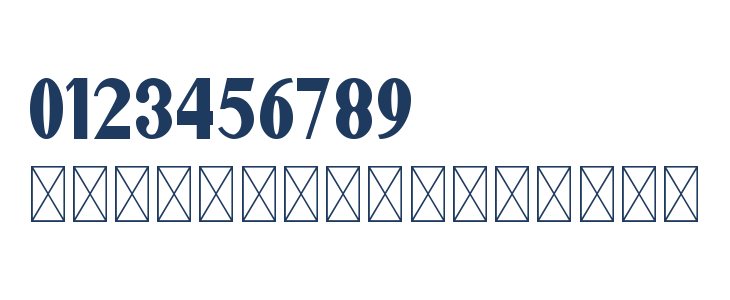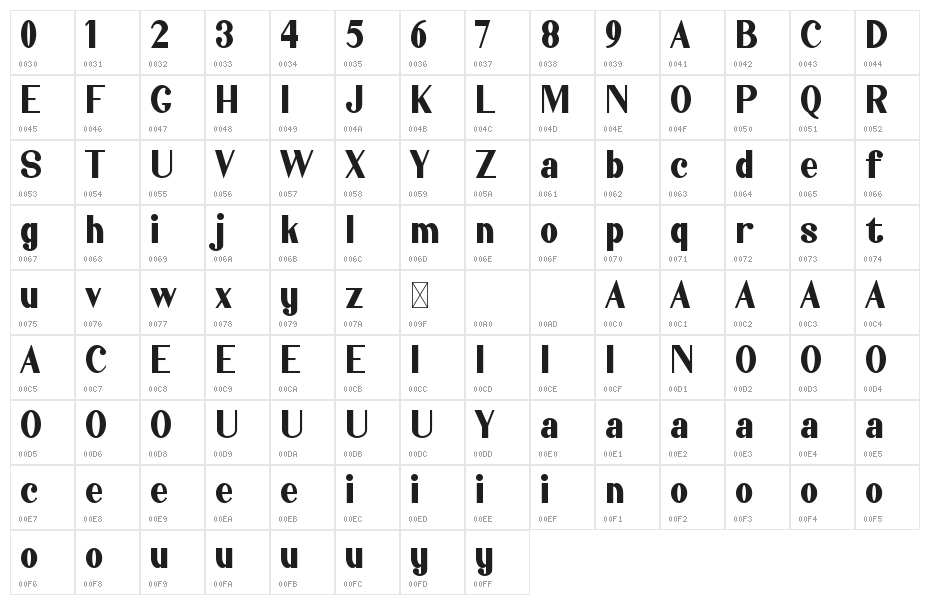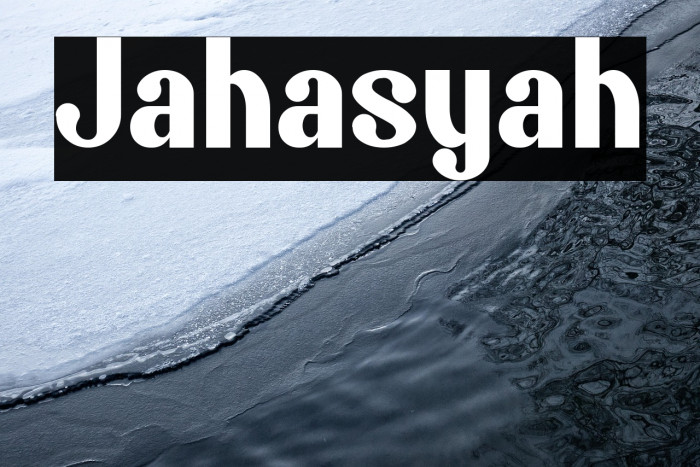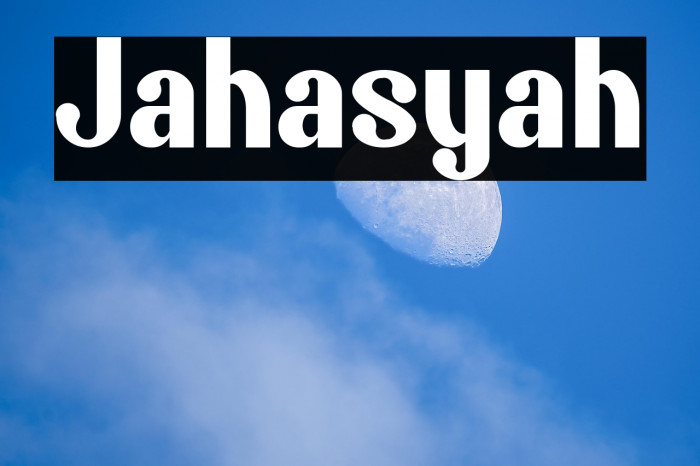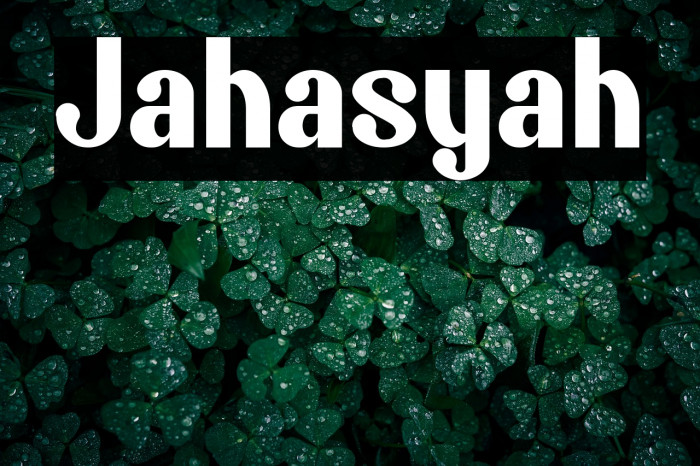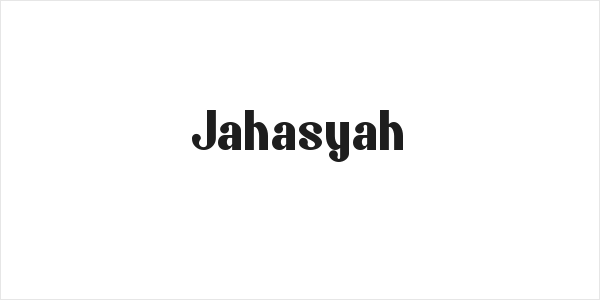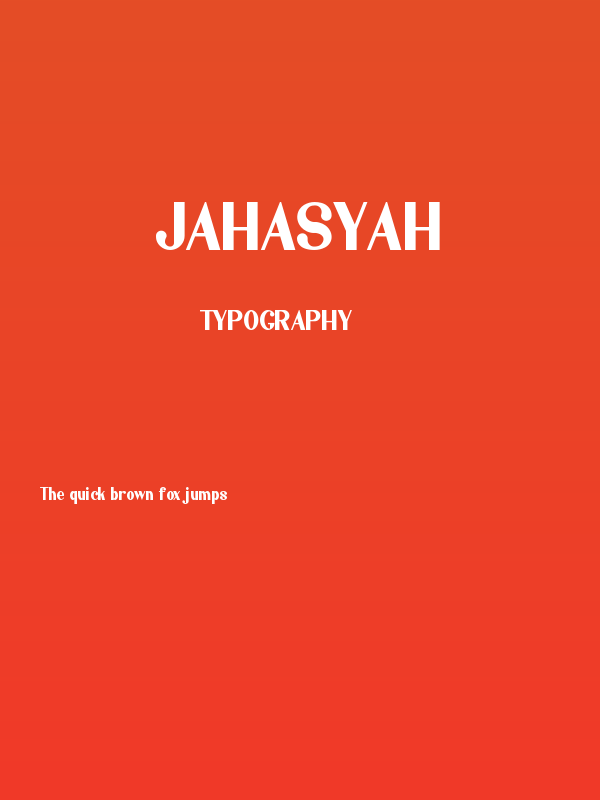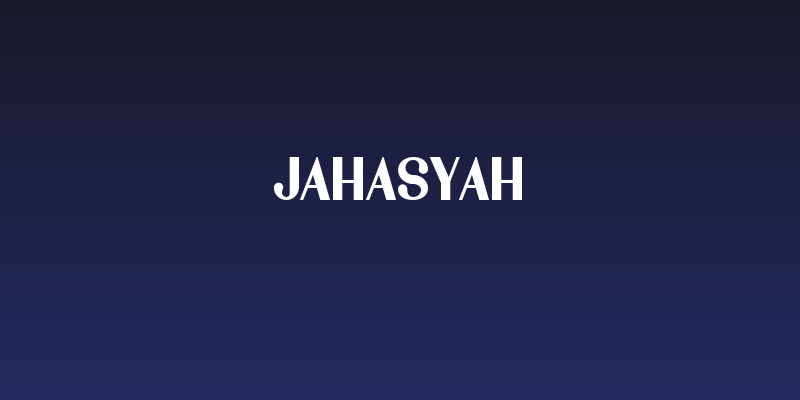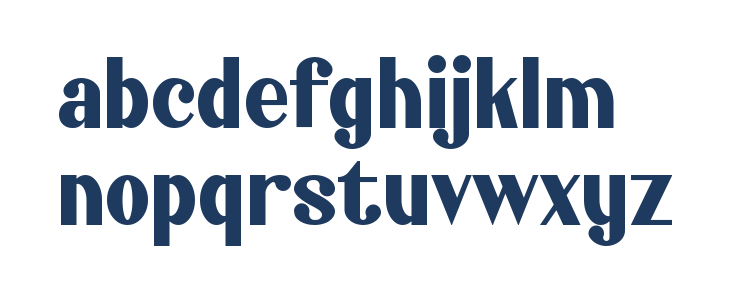
Jahasyah Font
Jahasyah Description
This font features a bold and striking design with high contrast between thick and thin strokes. The uppercase letters are tall and commanding, while the lowercase letters maintain a consistent weight, providing a harmonious balance. The numerals are clear and distinct, ensuring readability. The overall style is modern yet retains a classic touch, making it versatile for various applications. The special characters are well-integrated, maintaining the font's cohesive appearance.
| Proposed Projects | Ideal for headlines, branding, and logo design due to its bold and distinctive appearance. |